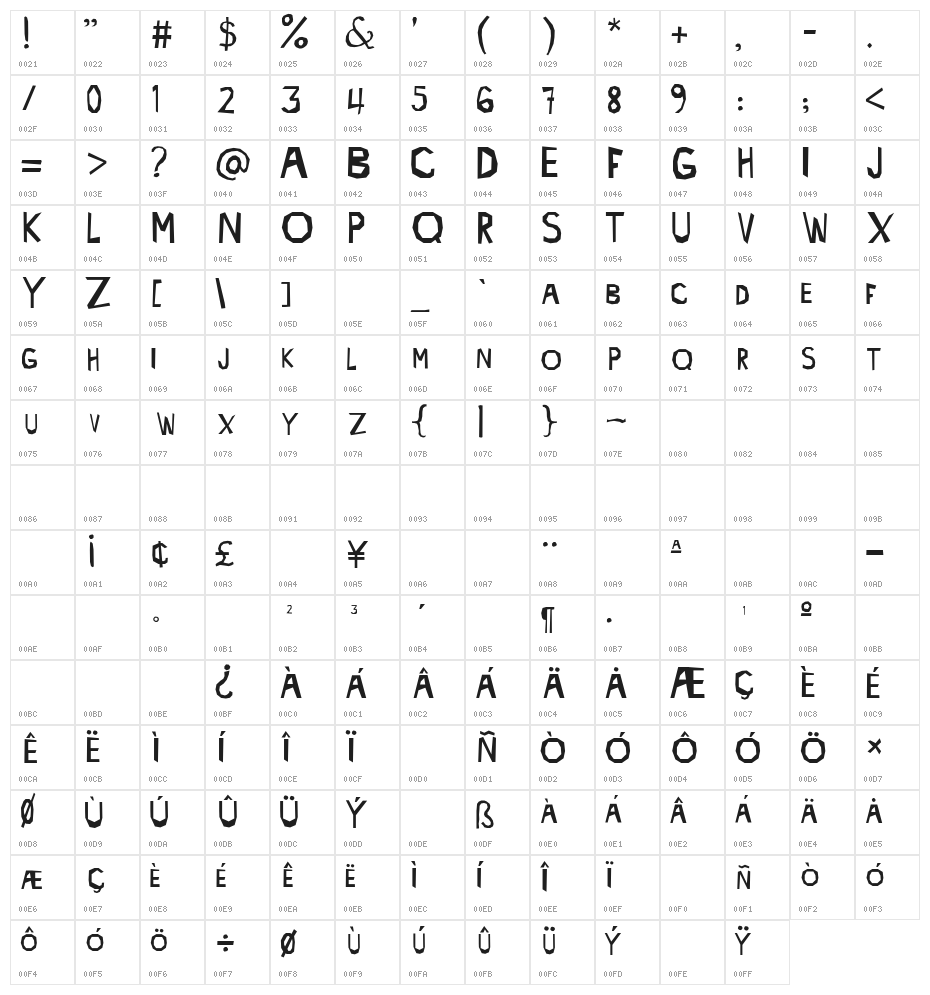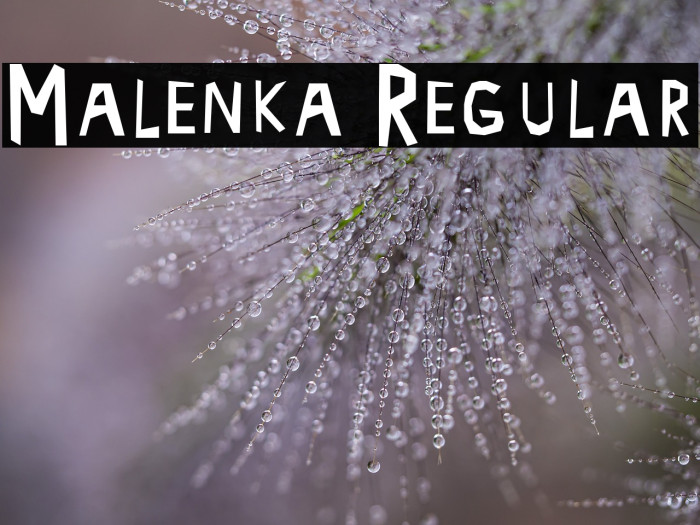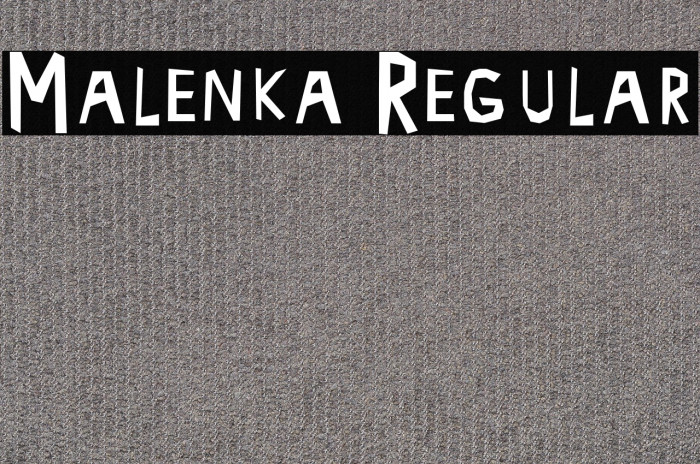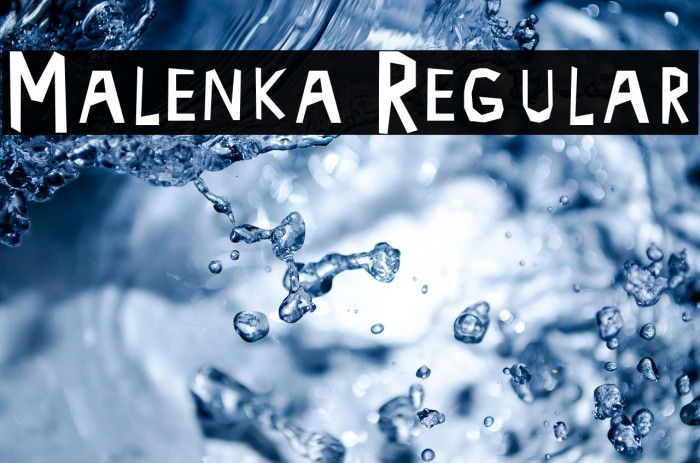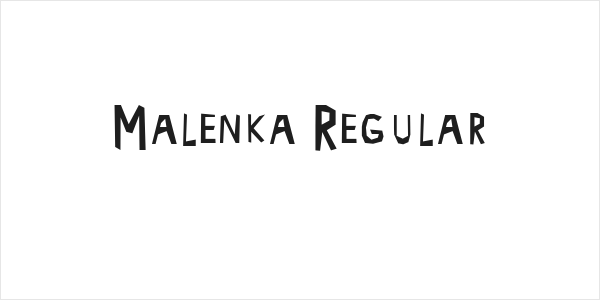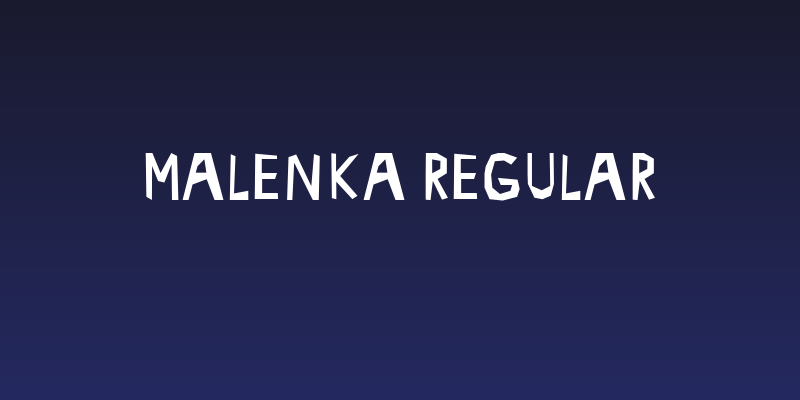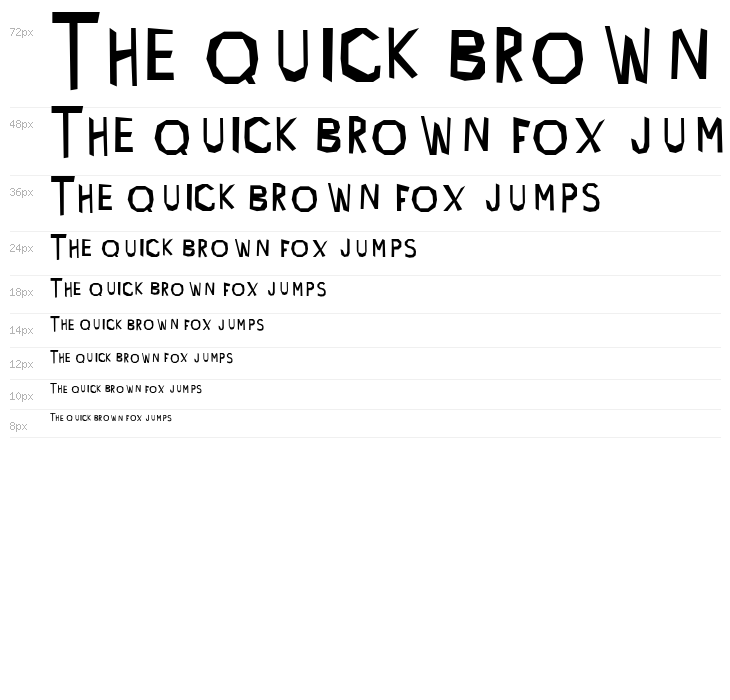
Malenka Regular Font
Malenka Regular Description
This font features a bold and angular design, characterized by its sharp edges and geometric forms. The uppercase letters are distinct with a slightly irregular shape, giving a handcrafted feel. The lowercase letters maintain the same angular style, providing a cohesive look across both cases. Numbers and special characters follow the same design principles, ensuring consistency throughout. The font's unique style makes it stand out, suitable for creative and artistic projects. Its boldness and distinctive appearance make it ideal for attention-grabbing headlines and titles.
| Overall Style | Modern, Artistic |
| Proposed Projects | Ideal for posters, logos, branding, and any project requiring a bold, artistic touch. |